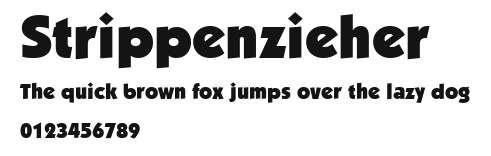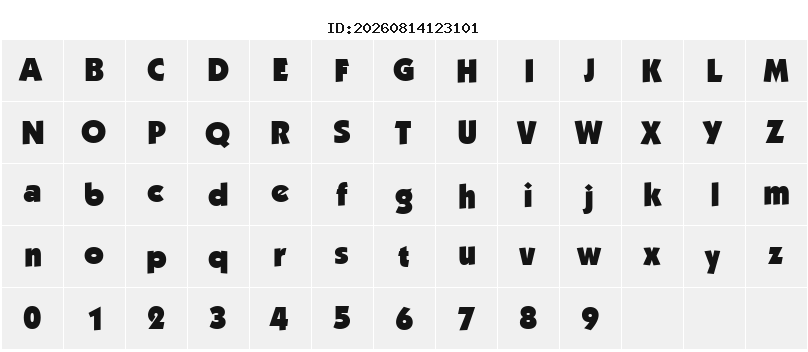
• Font Name: Strippenzieher
• Font Style: Ultra
About Strippenzieher.ttf
Strippenzieher.ttf is a modern, elegant sans-serif font designed for ultimate readability and visual harmony. Perfect for branding, headlines, web design, and print materials.